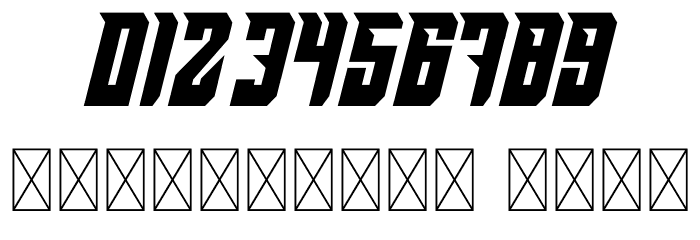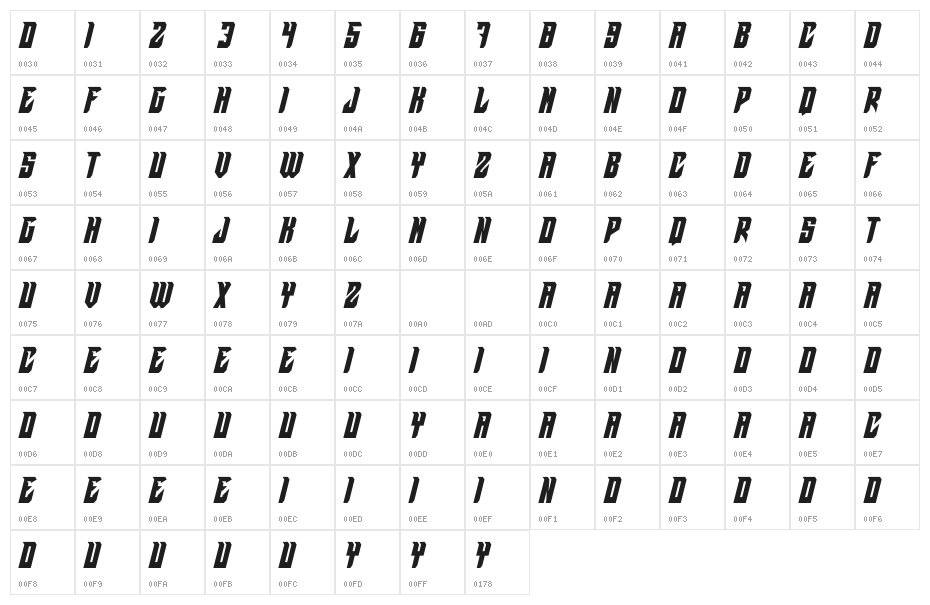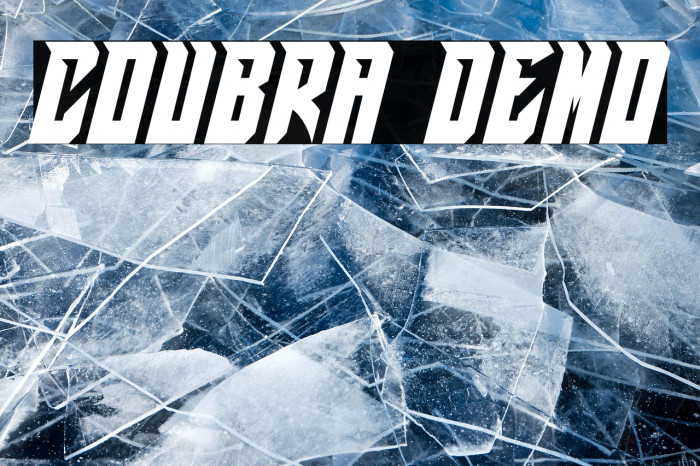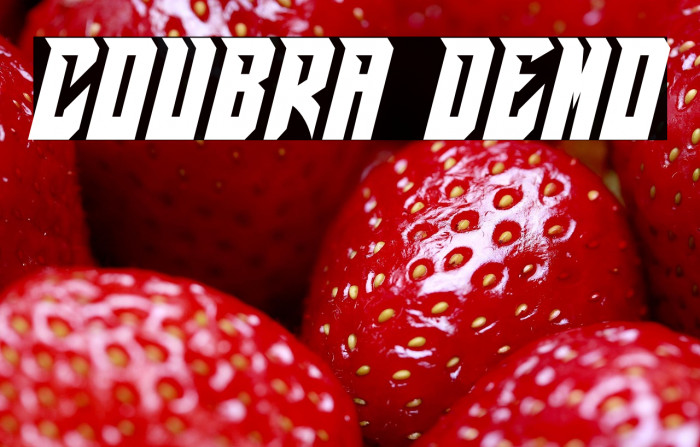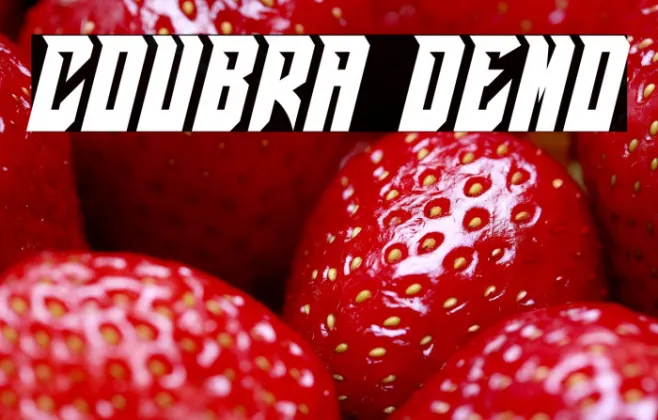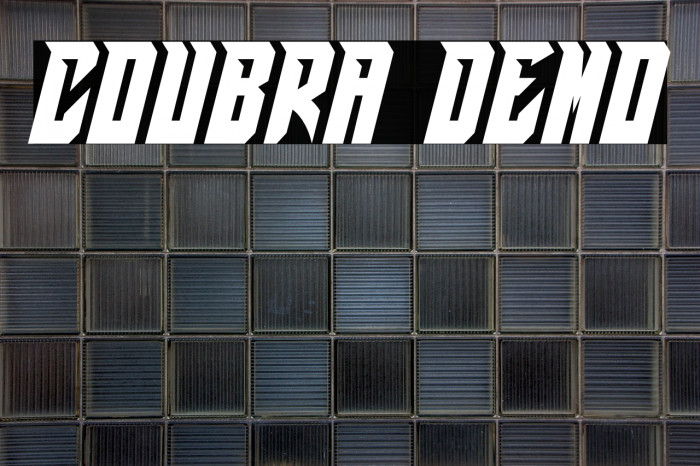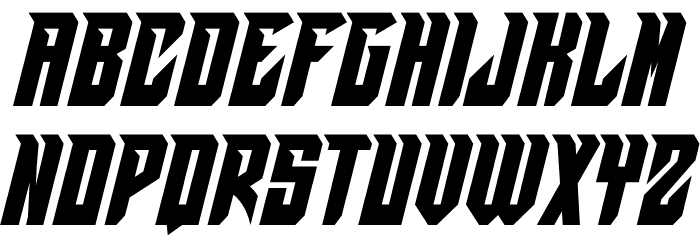
Coubra Demo Font
Coubra Demo Description
This font exhibits a bold and dynamic style, characterized by its sharp, angular lines and a distinct slant that gives it a sense of motion and energy. The uppercase letters are particularly striking, with each character featuring unique cuts and edges that enhance its aggressive appearance. The numbers follow the same design principles, maintaining consistency throughout. The font's overall aesthetic is modern and edgy, making it suitable for projects that require a strong visual impact. The absence of lowercase letters suggests a focus on bold statements and headlines.
| Proposed Projects | Ideal for sports branding, action movie posters, video game titles, and dynamic advertising campaigns. |